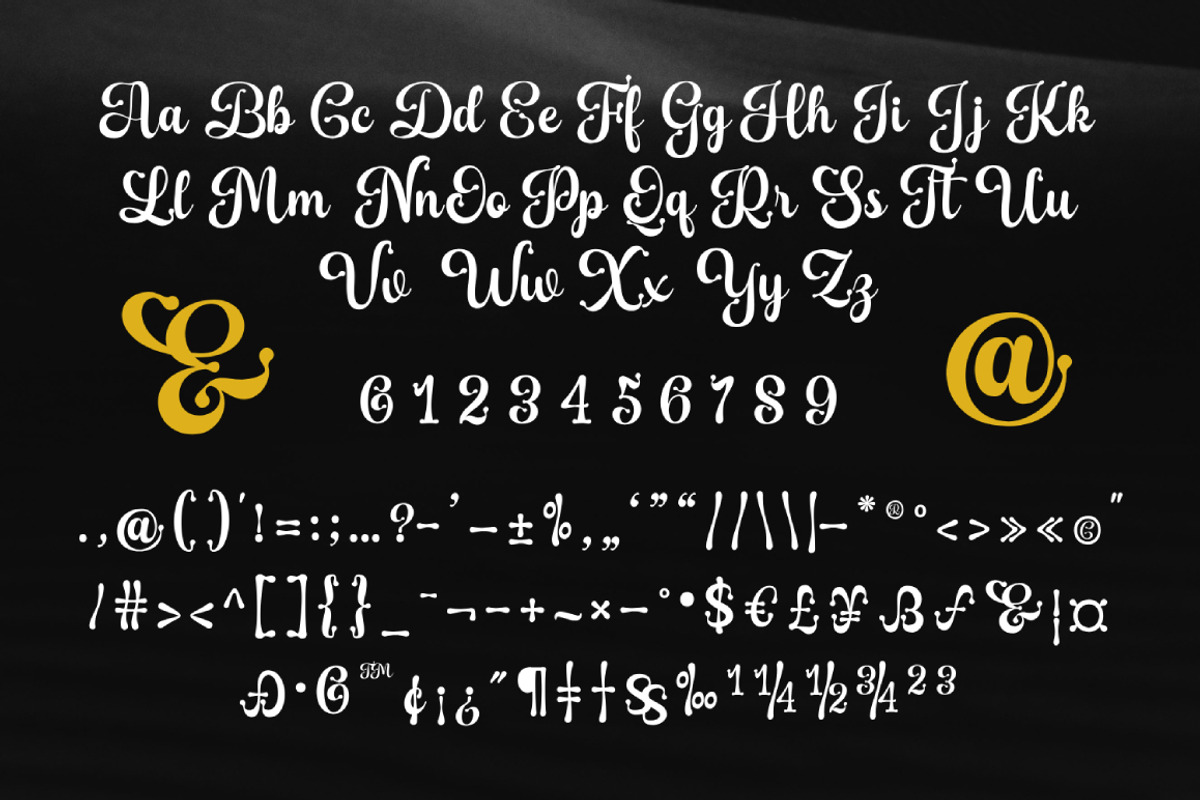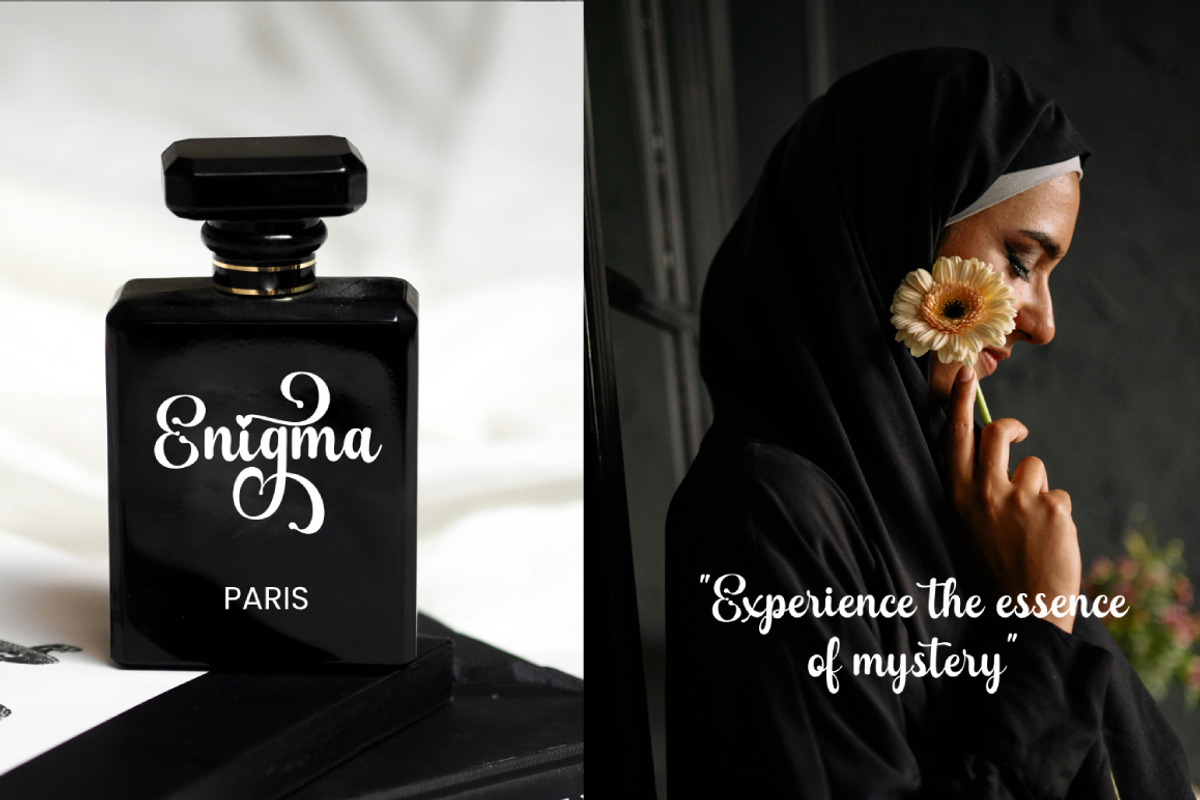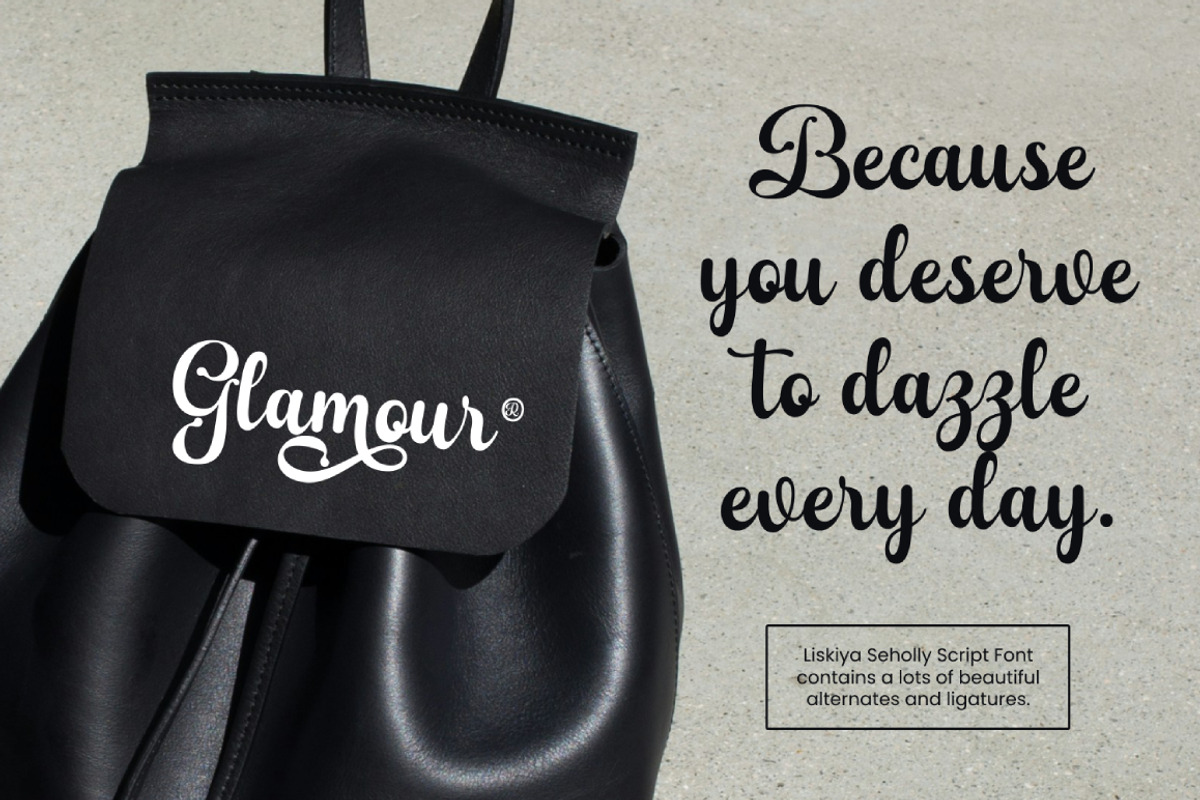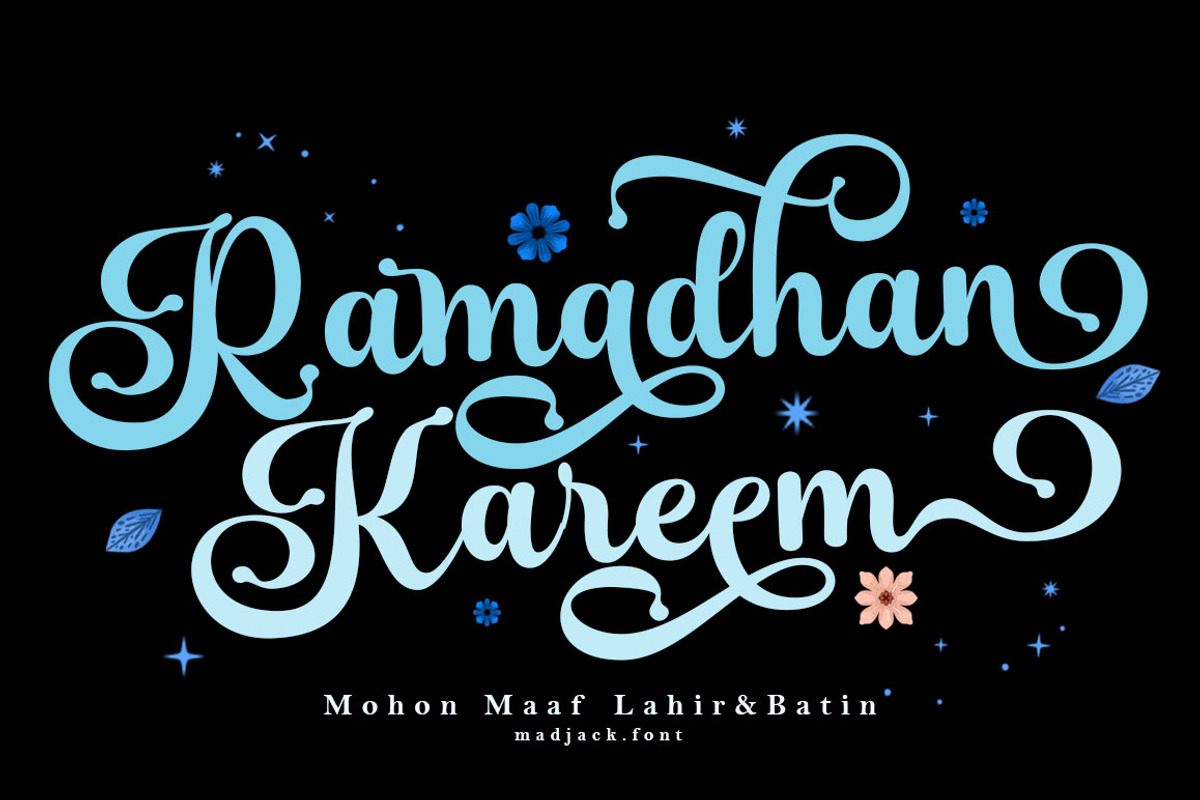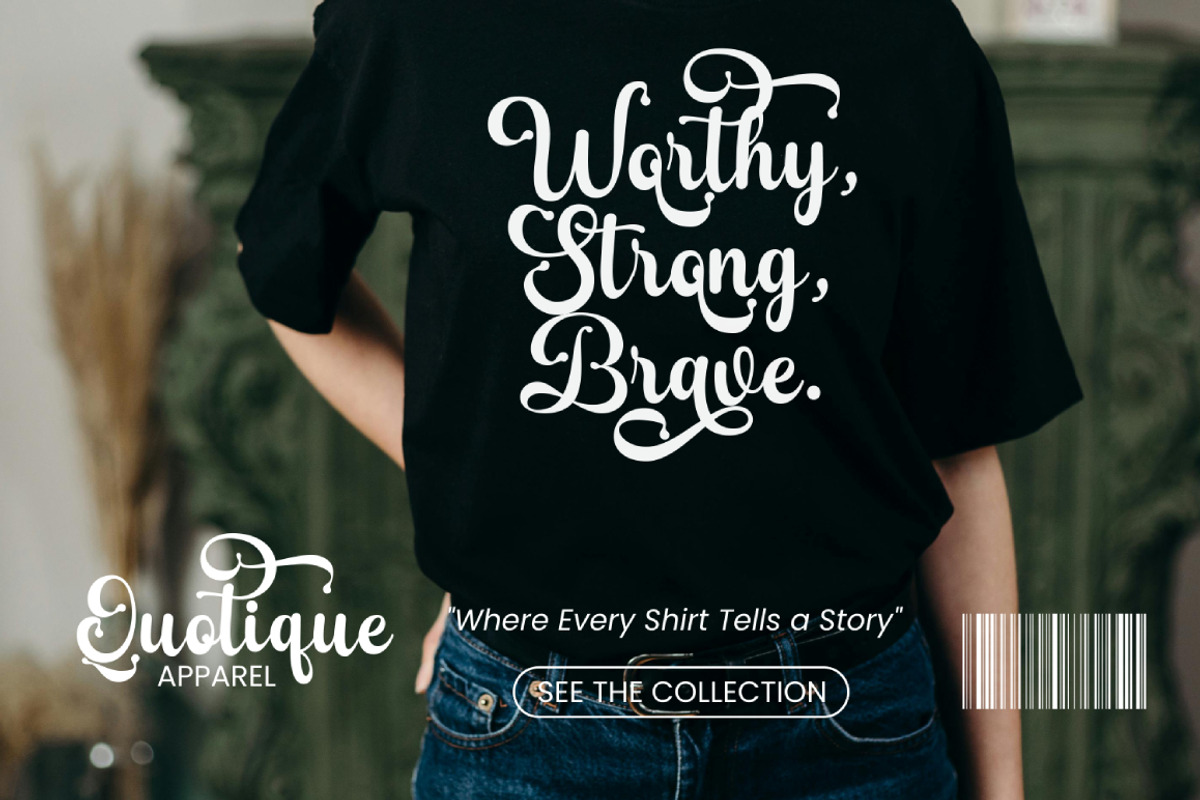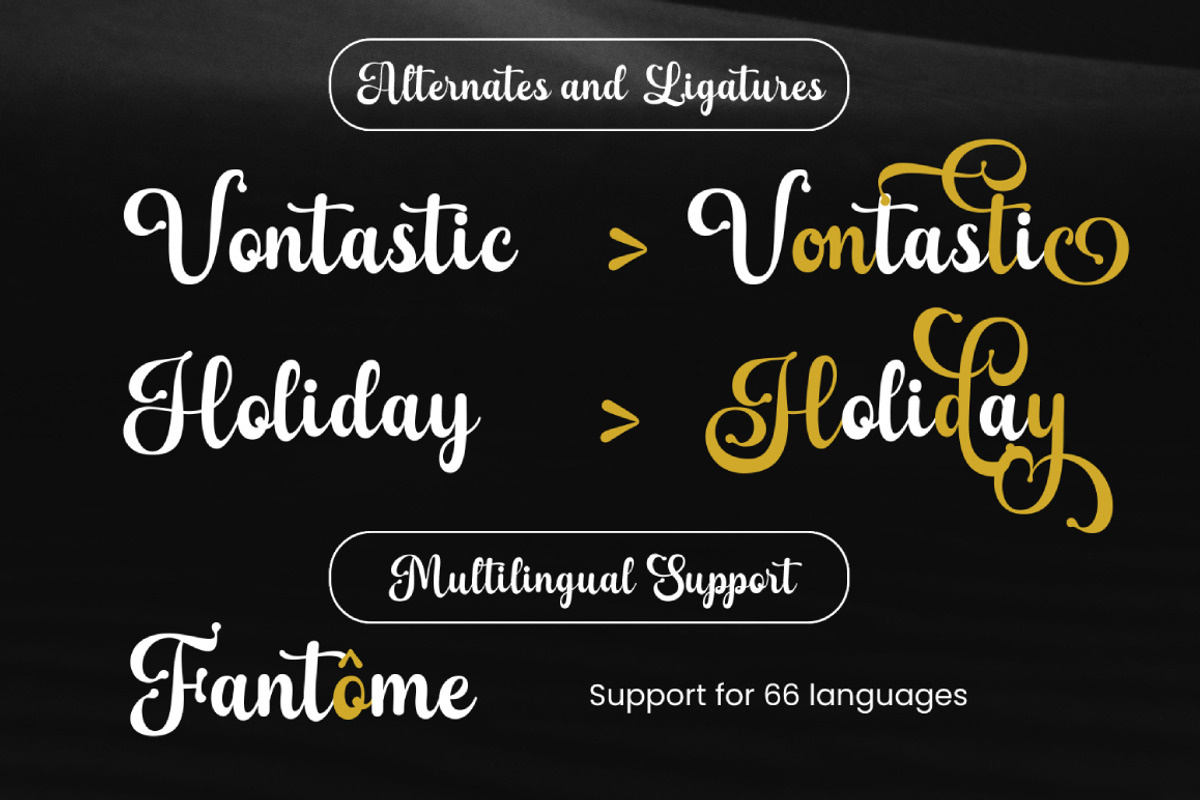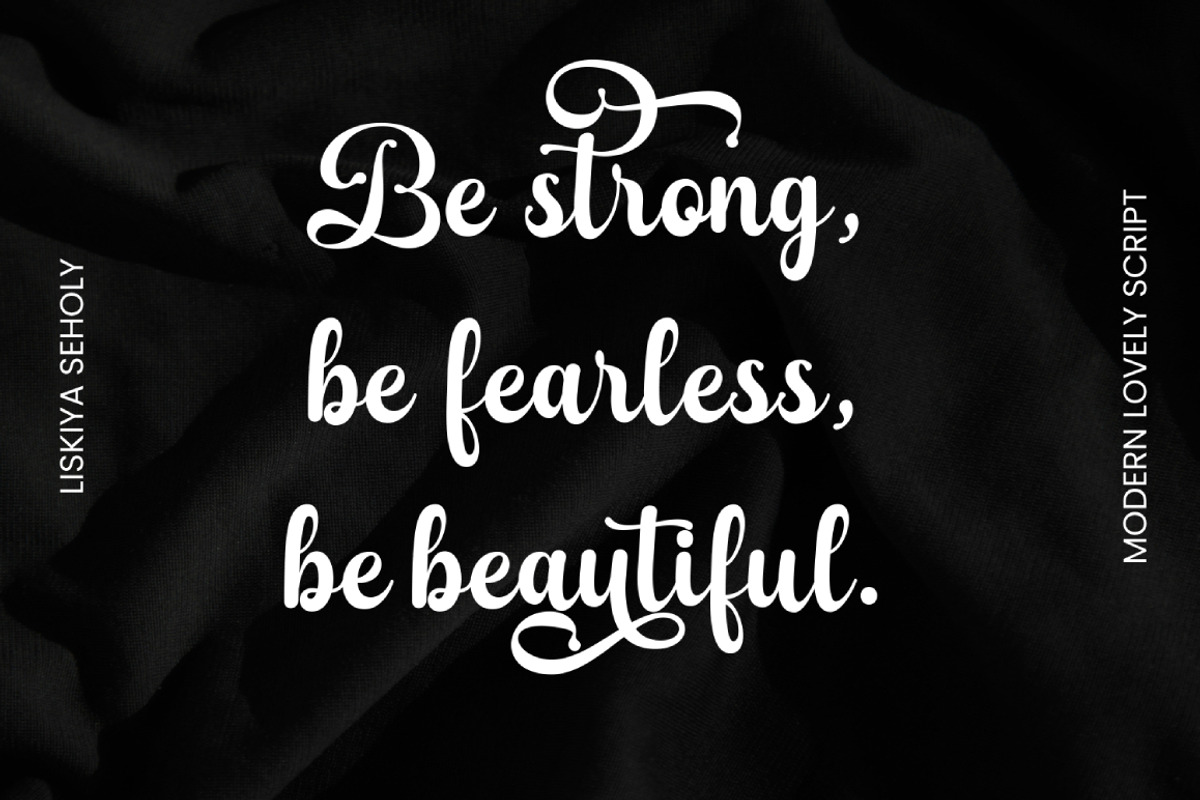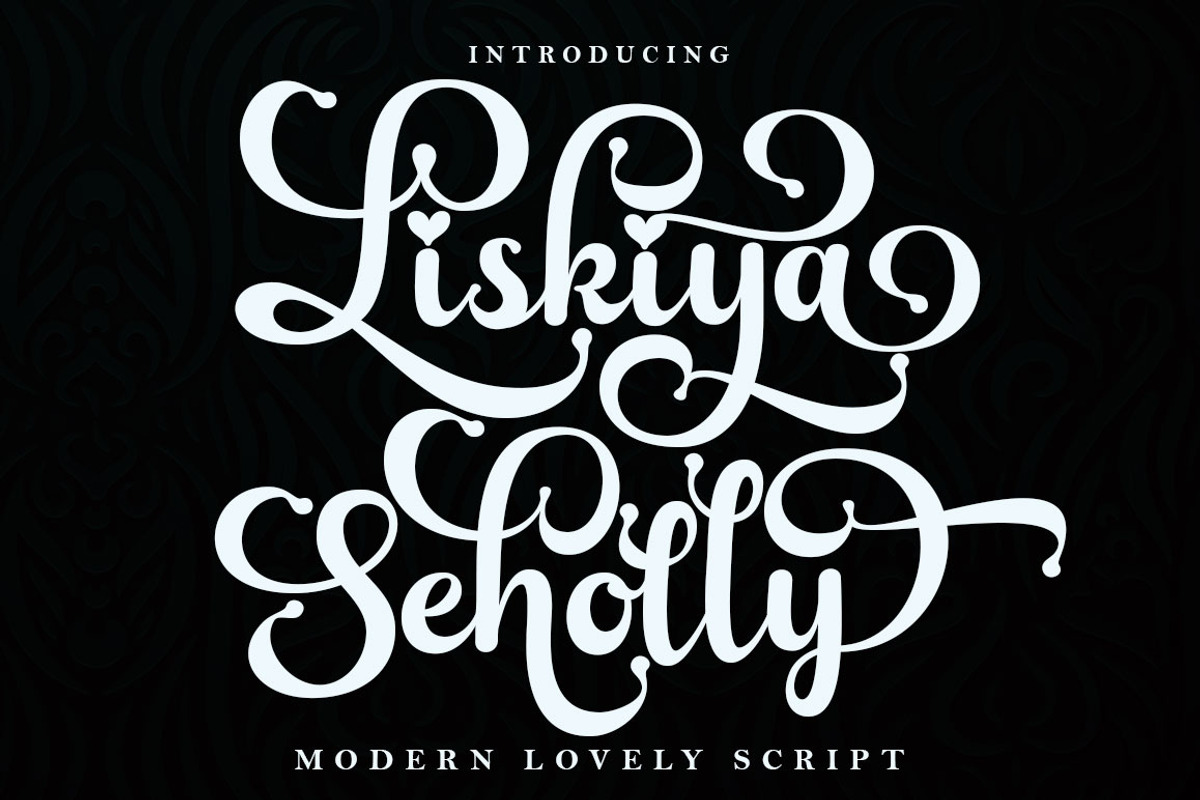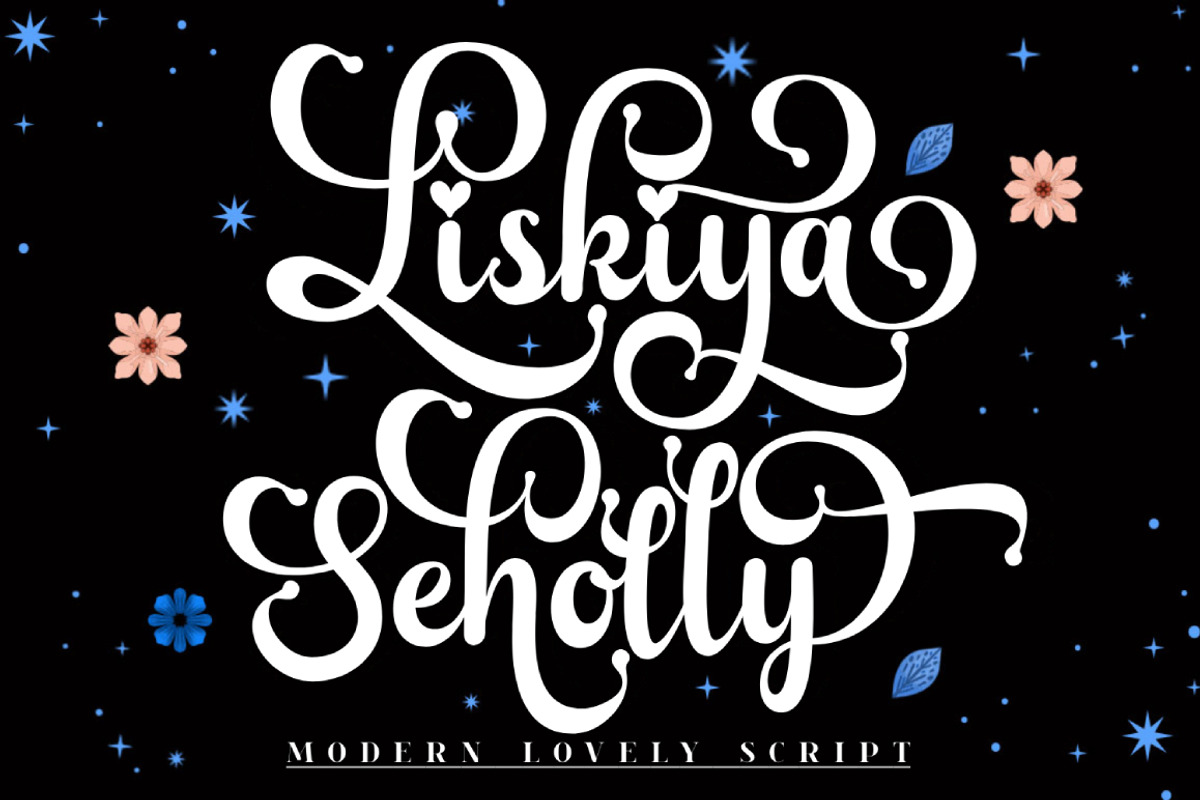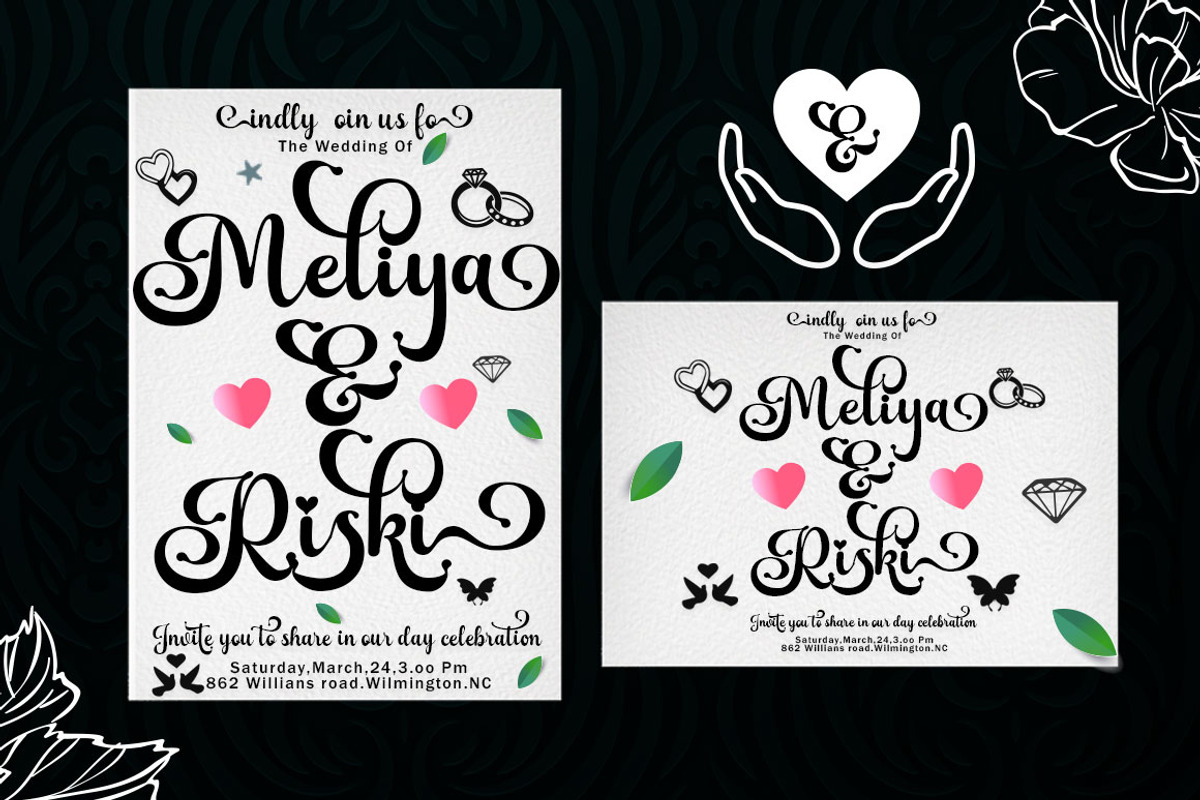
Liskiya Seholly Script
Liskiya Seholly Script is a modern calligraphy design including Regular. This font is casual and beautiful with strokes. Can be used for various purposes. such as logos, product packaging, wedding invitations, branding, headlines, signage, labels, signatures, book covers, posters, quotes, and many more.